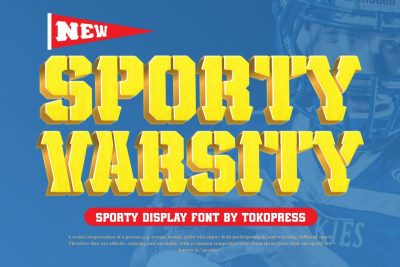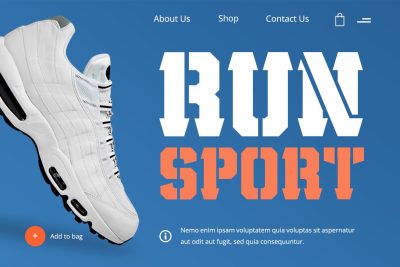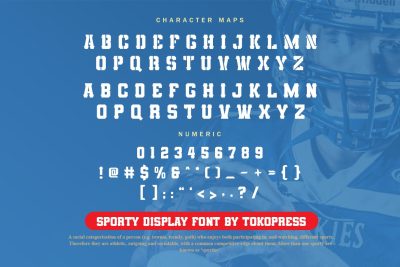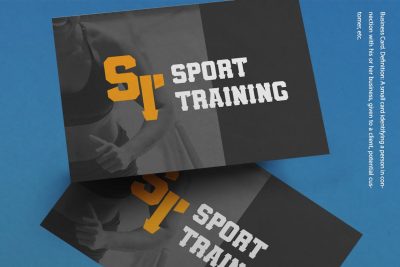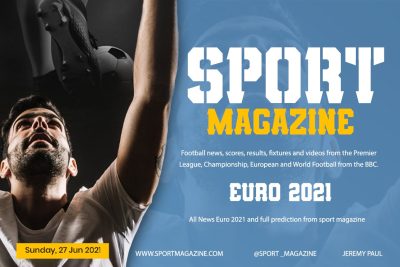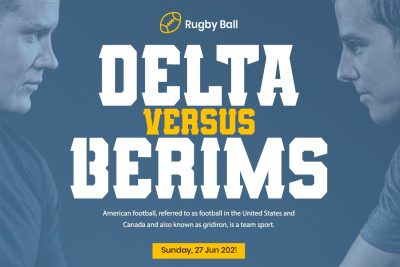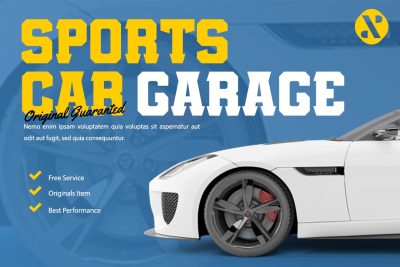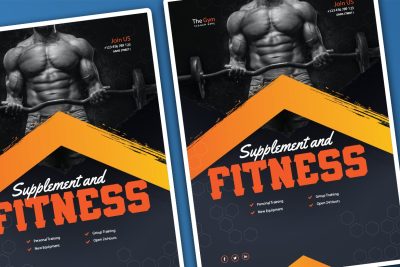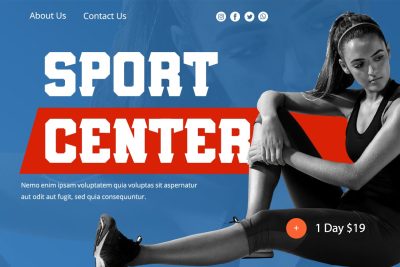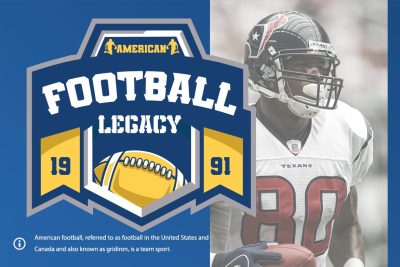
Stencil Font Sporty Varsity is a dynamic typeface designed for those who want a bold, athletic, and competitive touch in their designs. Inspired by varsity and collegiate lettering, this font blends strong, blocky forms with a modern stencil effect. As a result, it offers a versatile and impactful style that stands out in any project.
With thick, structured letterforms and sharp edges, Sporty Varsity exudes energy and strength. Moreover, the stencil cutouts enhance its uniqueness, making it perfect for designs that need a tough yet stylish appeal. Whether used for sports branding, merchandise, posters, or digital media, this font instantly commands attention.
Its well-balanced proportions and bold strokes ensure excellent readability, even from a distance. Furthermore, the high-impact design makes it ideal for headlines, banners, and promotional materials. By combining tradition with contemporary style, Sporty Varsity becomes a must-have for designers seeking a competitive flair.
Who Should Use Stencil Font Sporty Varsity?
Stencil Font Sporty Varsity is perfect for designers, businesses, and creatives who want to add strength and enthusiasm to their work. Whether for branding, marketing, or personal projects, this font is the top choice for sports-related and bold designs.
- Sports Teams & Athletic Brands: Great for team logos, jerseys, banners, and promotional materials. Consequently, it captures the essence of competition and team spirit.
- Event Organizers: Ideal for sports tournaments, fitness expos, and athletic events needing bold, high-visibility typography. Additionally, it enhances the overall branding of such events.
- Apparel & Merchandise Designers: Perfect for varsity jackets, t-shirts, and sportswear branding, giving clothing a distinct, energetic look. In turn, this makes merchandise more appealing to athletes and fans.
- Gaming & Esports Creators: Works well for gaming team logos, streaming overlays, and digital assets requiring a powerful design. Thus, it helps establish a strong identity in the competitive gaming industry.
- Educational Institutions & Colleges: Suitable for school branding, yearbooks, and club posters, reinforcing a strong identity and pride. Moreover, it creates a sense of tradition and belonging among students.
- Advertising & Marketing Professionals: A great option for eye-catching advertisements, product packaging, and signage that stands out. Consequently, it enhances brand visibility and recognition.
With its bold and athletic aesthetic, Stencil Font Sporty Varsity is a game-changer in typography. Whether for sports branding, merchandise, or digital designs, this font guarantees an energetic edge that captivates audiences. Therefore, add power and style to your projects with Sporty Varsity today!